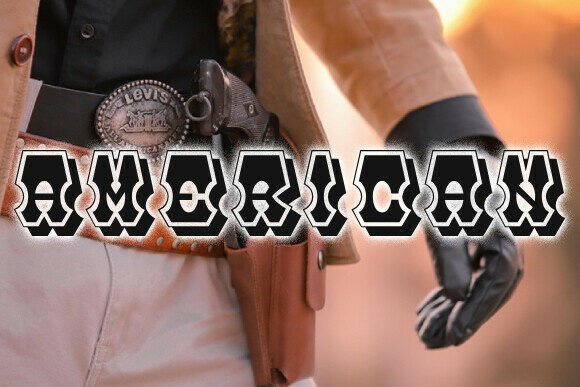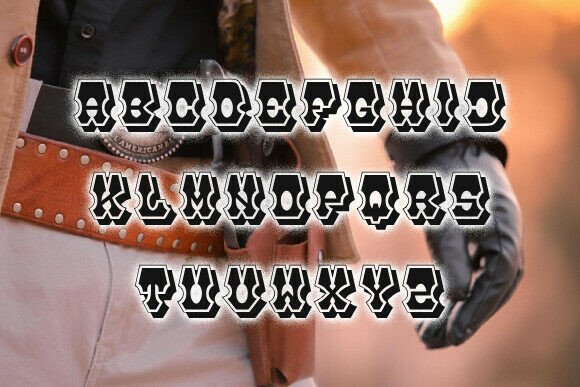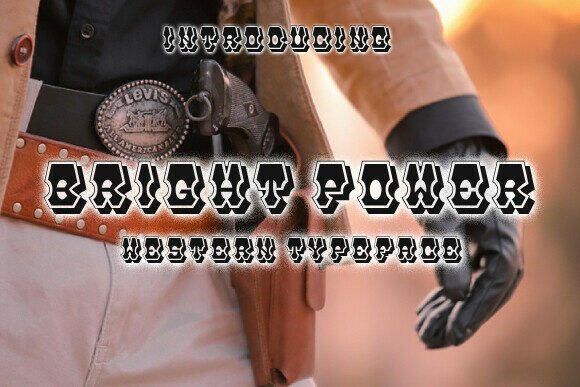
Introducing Brightpower Font: A Modern Twist on Classic Western Aesthetic
In the world of typography, few fonts manage to capture the essence of a bygone era while still exuding a modern, edgy vibe. Brightpower Font is one such exceptional typeface that seamlessly blends the rugged charm of classic Western aesthetics with a bold, unique silhouette. This captivating display font is designed to make a powerful statement, making it an ideal choice for designers and crafters looking to add a touch of rebellious energy to their projects.
The Distinctive Design of Brightpower Font
So, what sets Brightpower Font apart from other typefaces? The answer lies in its distinctive design elements. The font features blocky letterforms with rounded, almost bone-like terminals that give it an organic, hand-carved feel. This unique design approach imbues the font with a sense of ruggedness, reminiscent of the Wild West. The high-contrast design, featuring a crisp white interior against a deep black outline, adds to the font’s striking appearance. A subtle spray-paint effect further enhances the font’s edgy, urban-cowboy vibe.
A Perfect Blend of Traditional and Modern Elements
Brightpower Font’s versatility lies in its ability to combine traditional Western flair with a contemporary, edgy attitude. The font’s expressive tone is both tough and stylized, making it perfect for projects that need to make a powerful, no-nonsense statement. Whether you’re designing a movie poster, band logo, apparel, or branding materials, Brightpower Font is an excellent choice. Its unique blend of classic and modern elements ensures that your design stands out from the crowd.
Key Features of Brightpower Font
• Blocky letterforms: The font’s blocky letterforms with rounded terminals give it a distinctive, hand-carved feel.
• High-contrast design: The crisp white interior against a deep black outline creates a striking visual effect.
• Spray-paint effect: A subtle spray-paint effect adds to the font’s edgy, urban-cowboy vibe.
• Expressive tone: The font’s expressive tone is both tough and stylized, making it perfect for projects that need to make a powerful statement.
Use Cases for Brightpower Font
Brightpower Font is an incredibly versatile typeface that can be used in a wide range of design projects. Here are some use cases where the font truly shines:
• Movie posters: The font’s bold, attention-grabbing design makes it perfect for movie posters, especially those in the Western or action genres.
• Band logos: The font’s edgy, rebellious vibe makes it an excellent choice for band logos, particularly those in the rock or punk genres.
• Apparel: Brightpower Font is a great choice for designing apparel, such as t-shirts, hats, or jackets, that need a bold, eye-catching look.
• Branding: The font’s unique blend of traditional and modern elements makes it perfect for branding materials, such as logos, business cards, or brochures, that need to stand out.
In conclusion, Brightpower Font is a captivating display font that offers a modern take on the classic Western aesthetic. Its distinctive design elements, versatility, and expressive tone make it an excellent choice for designers and crafters looking to add a touch of rebellious energy to their projects. Whether you’re designing a movie poster, band logo, apparel, or branding materials, Brightpower Font is sure to make a powerful statement.